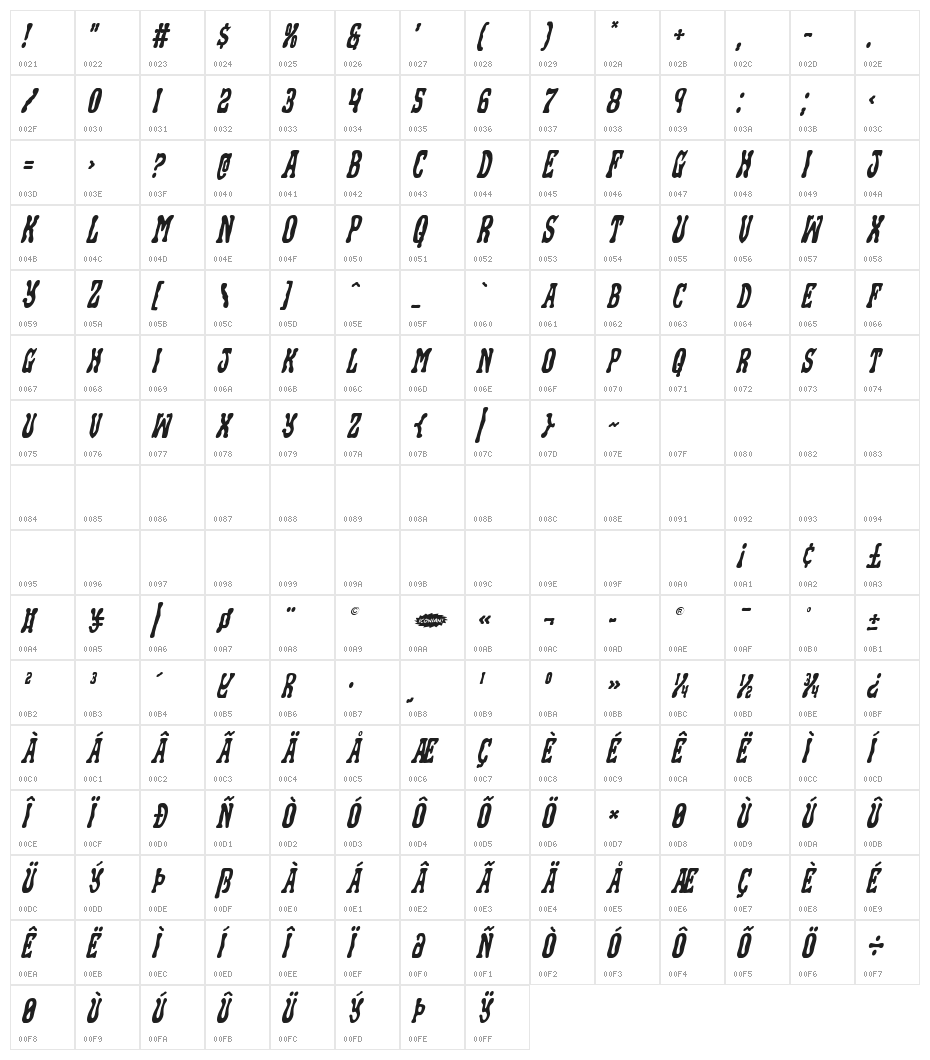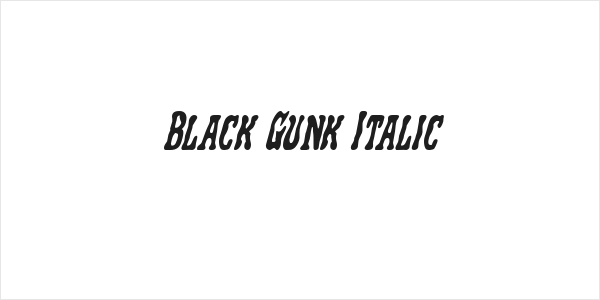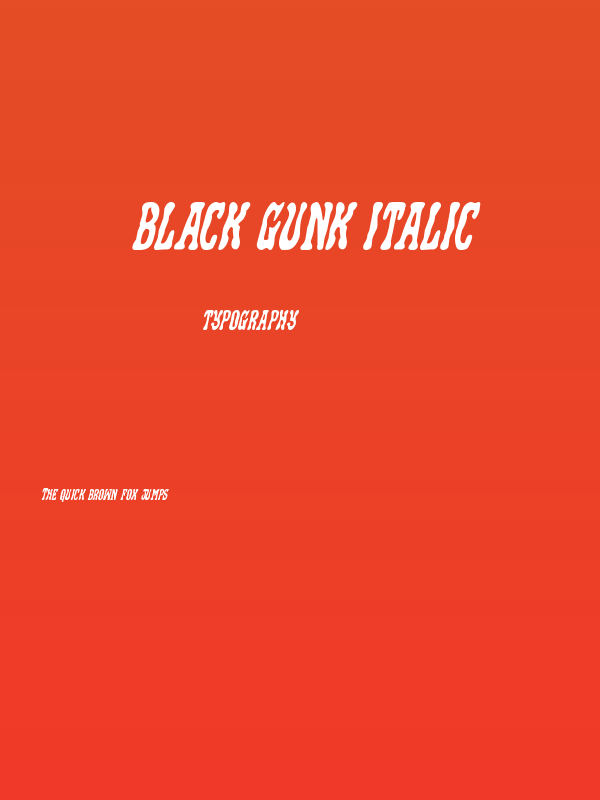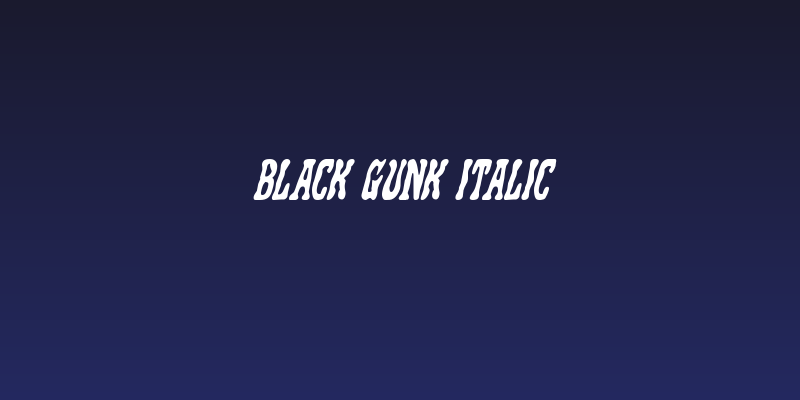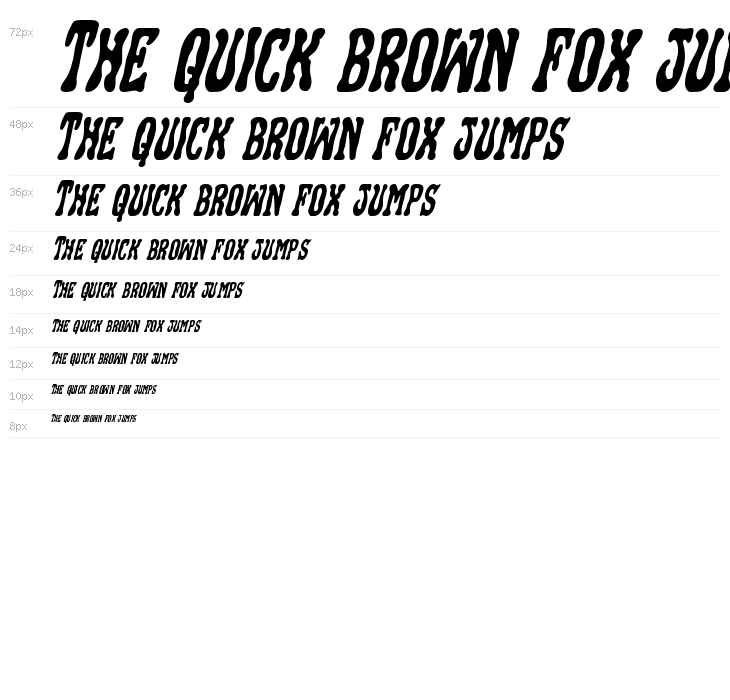
Black Gunk Italic Font
Black Gunk Italic Description
This font features a bold, italicized style with a distinctive, heavy appearance. The characters are thick and rounded, giving them a playful yet assertive look. The strokes are consistent in weight, contributing to a uniform and cohesive appearance. The italic slant adds a dynamic and energetic feel, making it suitable for attention-grabbing designs. The overall style is decorative, with a touch of whimsy, making it ideal for creative projects that require a bold statement.
| Proposed Projects | Perfect for posters, logos, and headlines that need a bold, eye-catching design. |